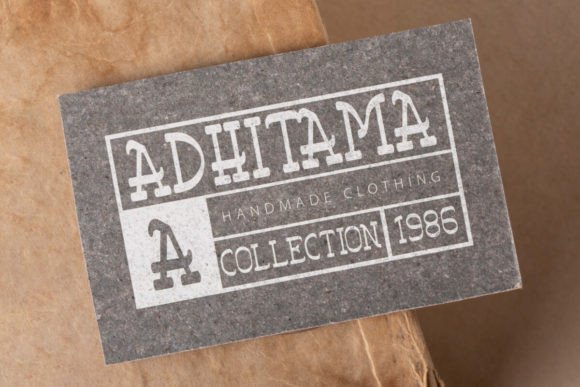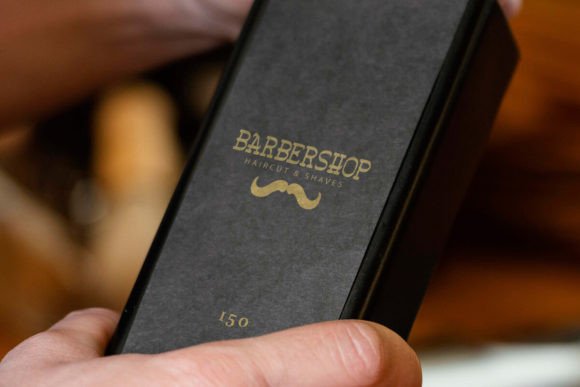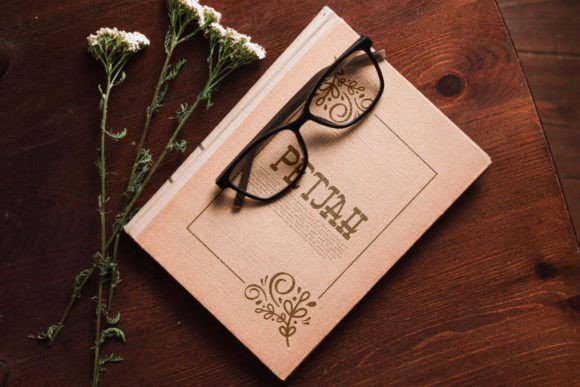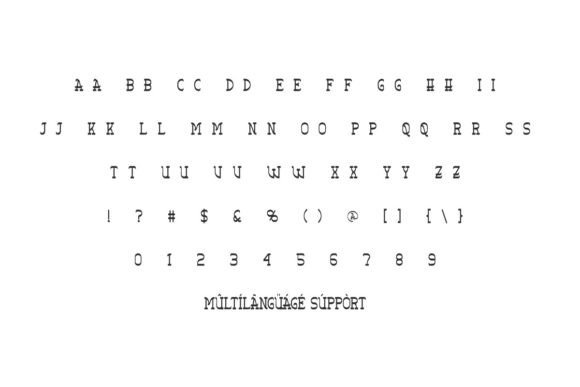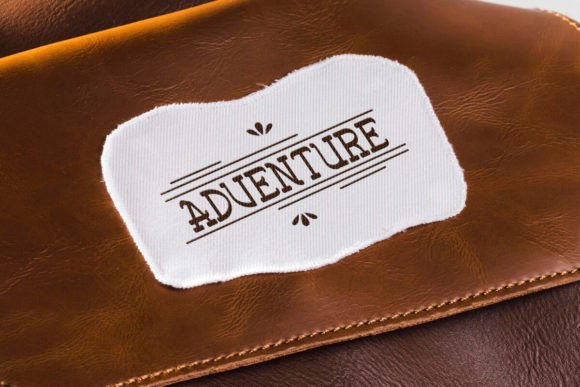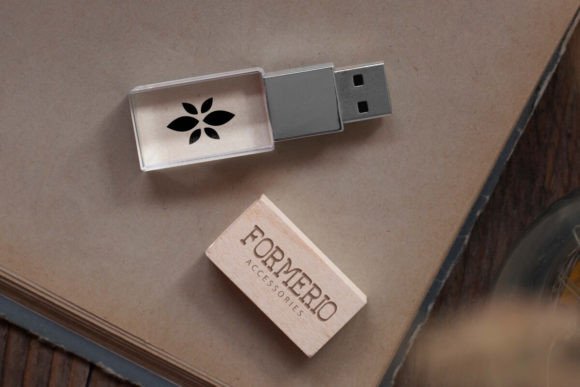
Introduction to Petjah Font
You know that moment when you’re brainstorming ideas for your next creative project, and you’re stuck on the perfect font to give it that extra oomph? It’s like searching for the missing piece of a puzzle. But what if I told you that you’ve just found it? Introducing Petjah Font, a classic serif display font with a retro style that’s sure to elevate your designs to the next level.
- Unique, modern design style that can add a touch of sophistication to any creative project, making it a valuable design resource.
Honest Review: Petjah Font
I recently had the chance to work with the Petjah Font, and I must say it’s a solid addition to any design resource. The font’s unique blend of elegance and modernity makes it perfect for a creative project that requires a touch of sophistication.
One of the things I love about the Petjah Font is its versatility. It works well in a variety of contexts, from headings to body text. The font’s high quality is evident in its crisp lines and smooth curves, making it a great choice for digital design projects.
- High-quality design with crisp lines and smooth curves
While the Petjah Font is a great resource, there are a few limitations to be aware of:
- ⚠️ Limited character set, which may not be suitable for projects that require a wide range of characters
- ⚠️ Not suitable for small text sizes, as the font can become difficult to read
Overall, I’m impressed with the Petjah Font and would recommend it to designers looking for a high-quality, versatile font for their creative projects.
The Petjah Font is ideal for use in creative projects such as logo design, branding, and marketing materials. Its transparent background and high-quality design make it a popular choice among designers.
Is the Petjah Font suitable for high-resolution printing?
Yes, the Petjah Font is designed to be highly legible and clear, even at high resolutions. The font’s crisp lines and precise shapes ensure that it will look great in print, whether you’re creating business cards, brochures, or other marketing materials. Simply ensure that your design software is set to use high-quality rendering and you’re good to go.